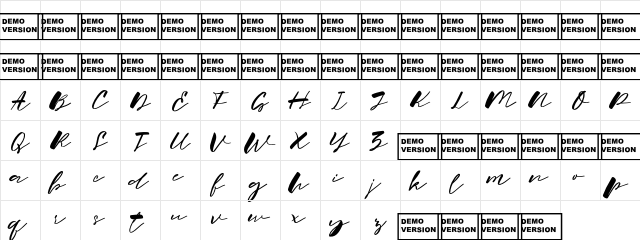
Hygge Home Demo Free Font
Hygge Home Demo
Foundry: Katsia Jazwinska
Designer: Katsia Jazwinska
Design Context for Hygge Home
Hygge Home is a composed and adaptable typeface that performs quietly and consistently across a wide range of design contexts.
Pro Tip: Use Hygge Home in both headline and body roles to test its range before committing to a single application.